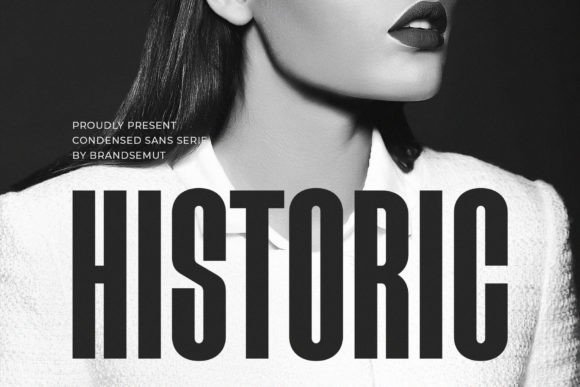
Introducing Historic Condensed Sans Serif - the ultimate font for all your creative endeavors! Crafted by the talented team at BrandSemut, this modern and simple font is here to elevate your designs to new heights.
With its sleek and clean lines, Historic is the perfect choice for eye-catching headings, captivating logos, and memorable branding. This versatile font is also ideal for magazines, product packaging, and invitations, ensuring your message is delivered with style and sophistication.
Unleash your creativity and let Historic transform your projects into works of art. Its smooth curves and timeless elegance add a touch of class to any design, making it a must-have for all design enthusiasts.
Looking to create captivating memes? Look no further! Historic is the best font for memes, allowing you to effortlessly convey humor, wit, and emotion in every image. Whether you're sharing hilarious memes with friends or creating viral content, Historic will make your memes stand out from the crowd.
The secret behind Historic's success lies in its ability to evoke emotions. Its captivating charm and modern appeal will leave a lasting impression on your audience. From playful and energetic to elegant and refined, this font effortlessly adapts to any mood or message you want to convey.
Remember, the right font can make all the difference. Choose Historic and let your creativity soar to new heights!